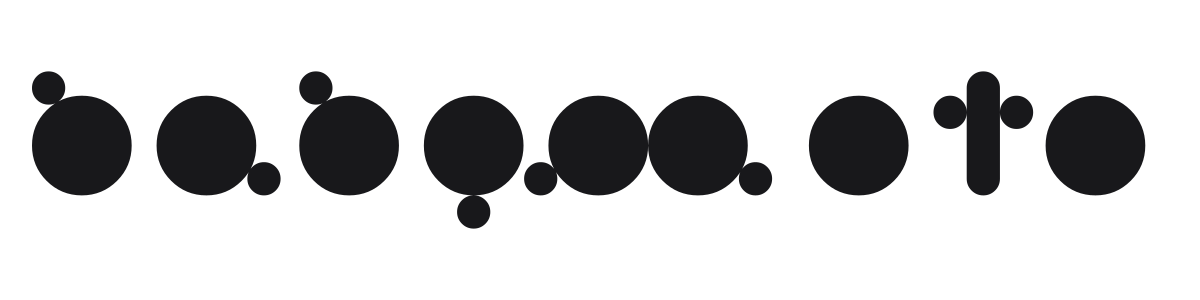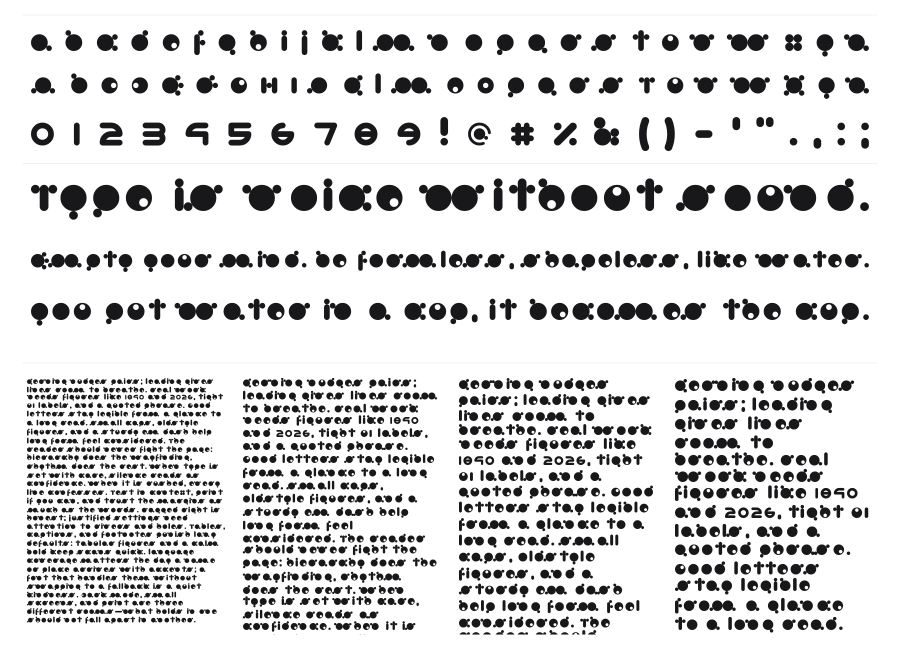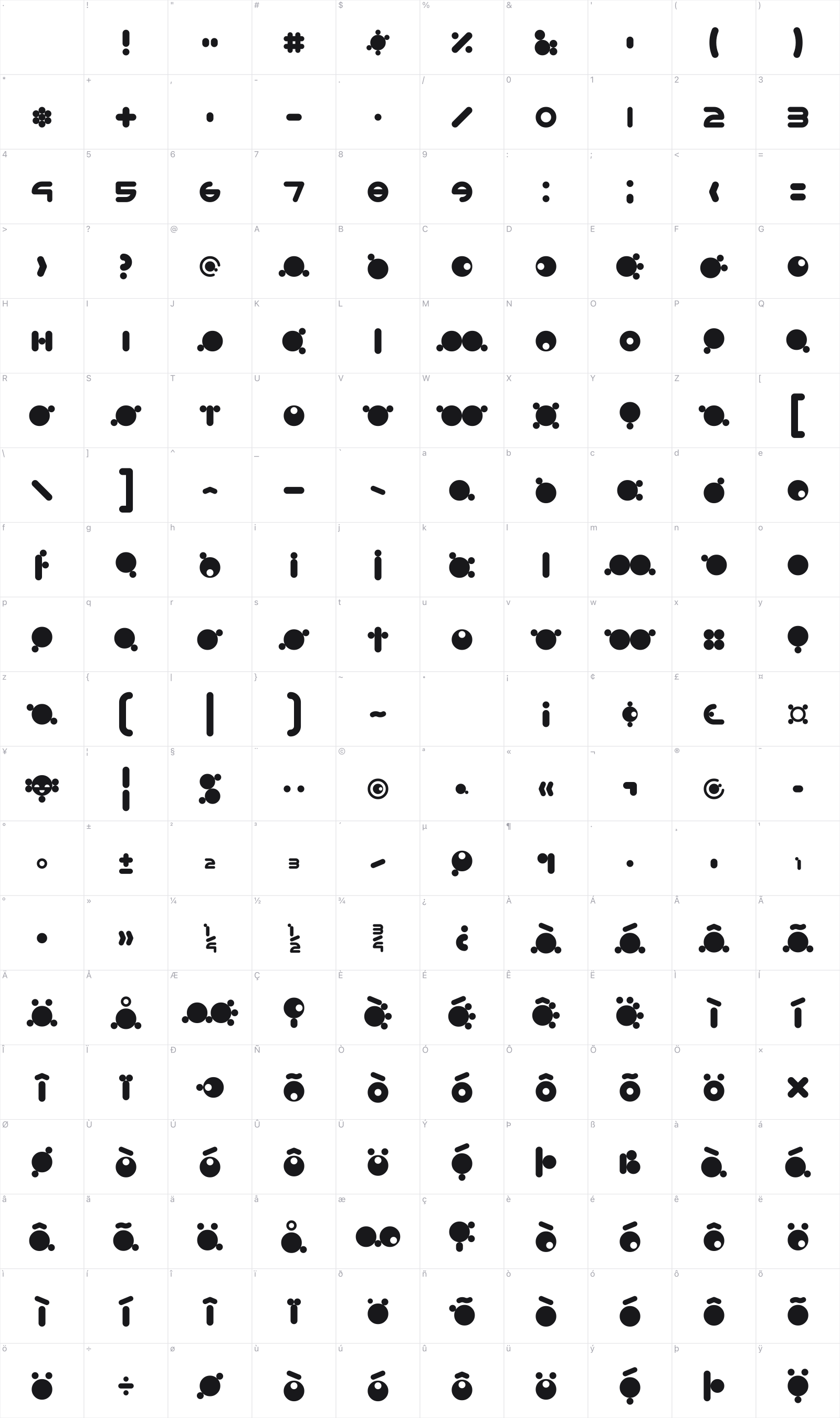
Babymoto
Babymoto is a circular novelty display font where every character is built from spheres, creating a bubbly, bead-like alphabet that reads more like a visual puzzle than conventional type. The zero-contrast, heavy weight and cut-out counters give it a satisfying tactile quality at large sizes. It works where the design calls for something genuinely strange and playful.